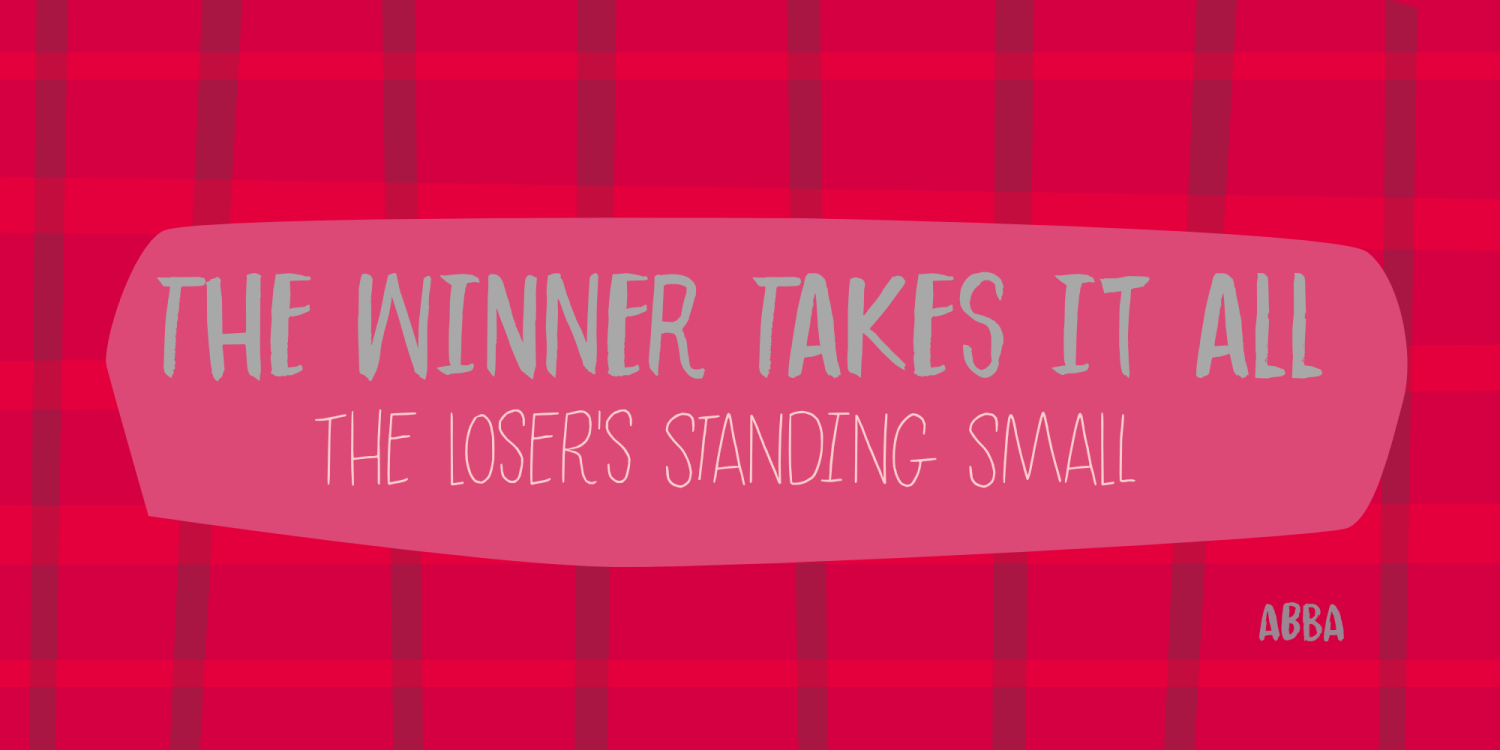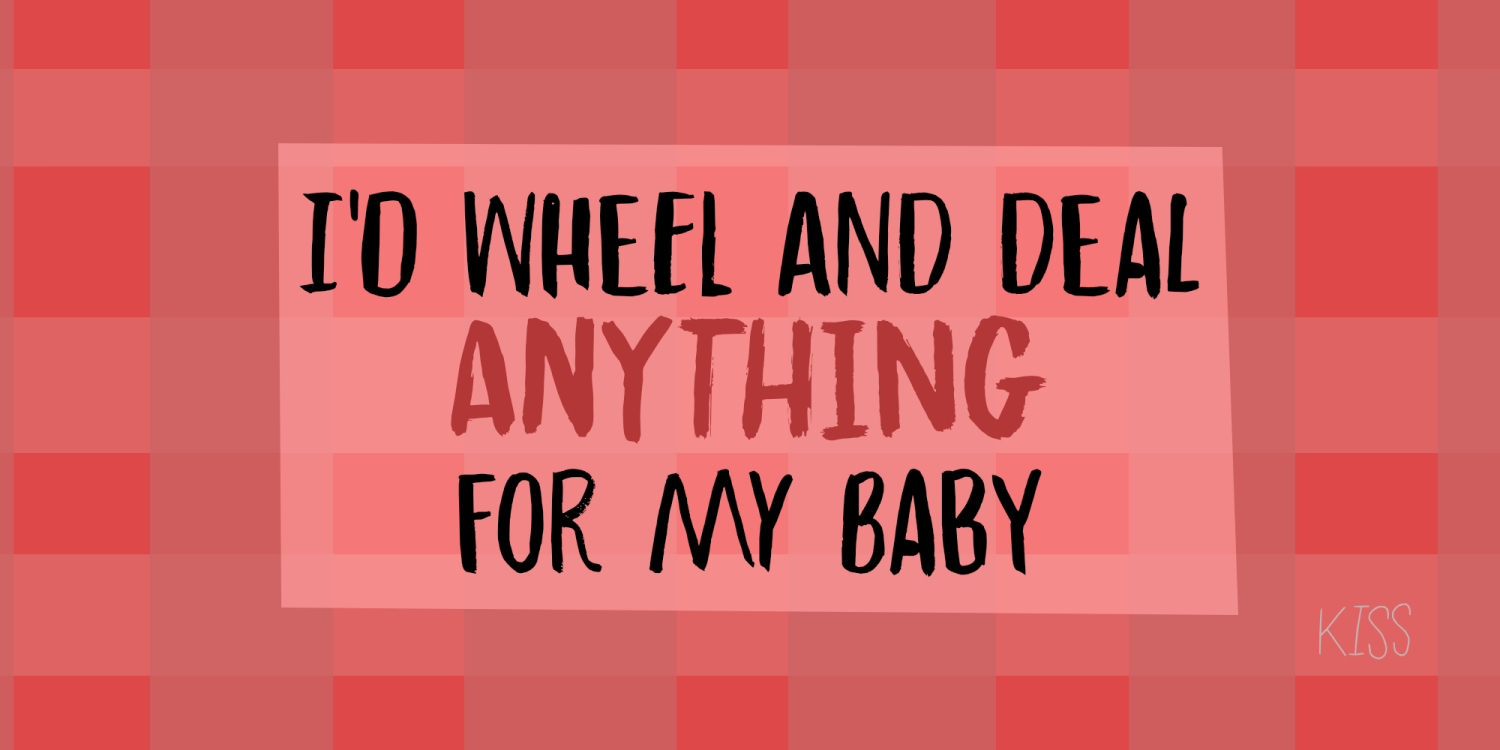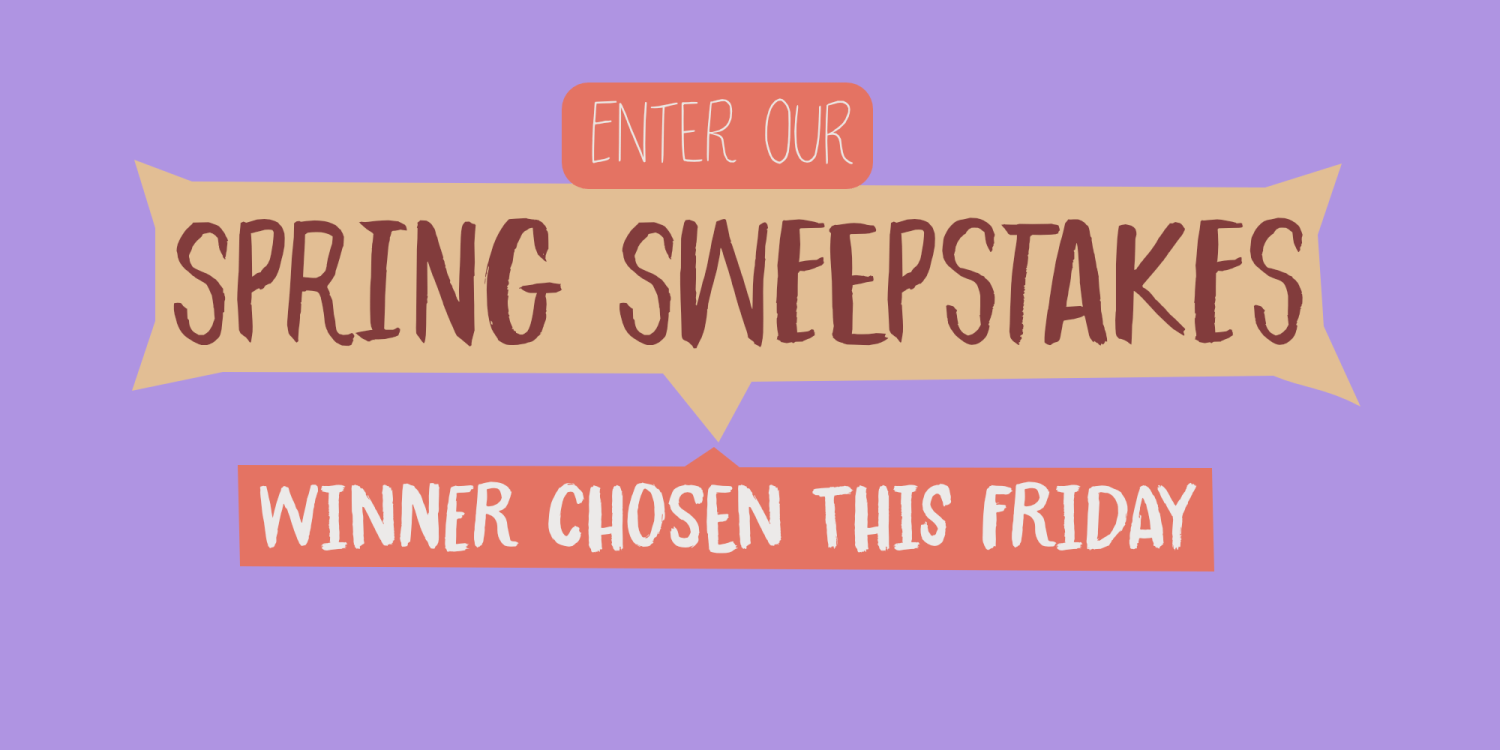
Winning Deal
Meet Winning Deal, a unique handmade font family designed to bring an expressive feel to your designs. This family consists of three distinctive handmade fonts plus their matching italics. Every letter was made using a brush and Chinese ink. This way the authentic brush movement was preserved, giving your designs a warm and personal character.
Winning Deal is a very versatile font family and works beautifully across a wide range of creative projects, including packaging design, branding and logos, social media graphics and editorial layouts.